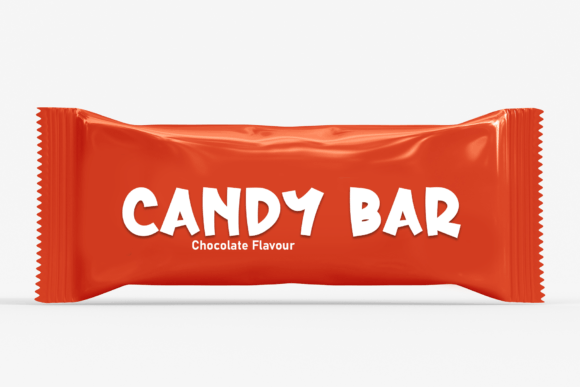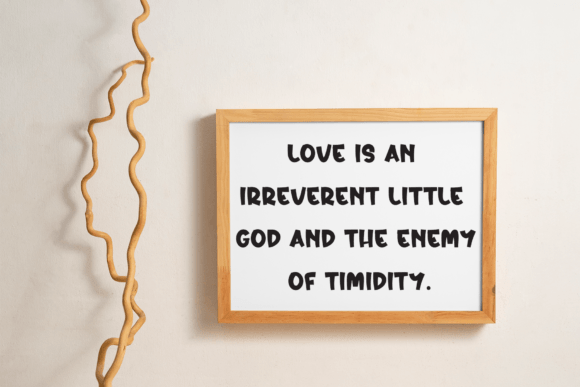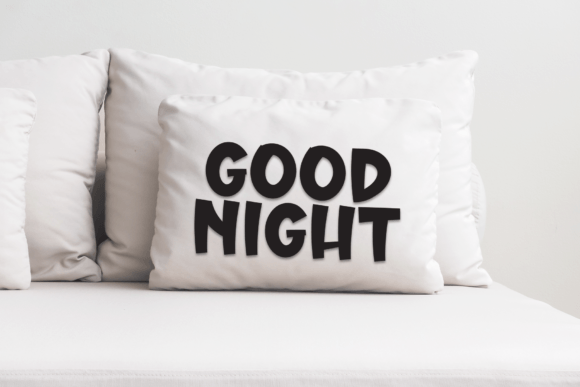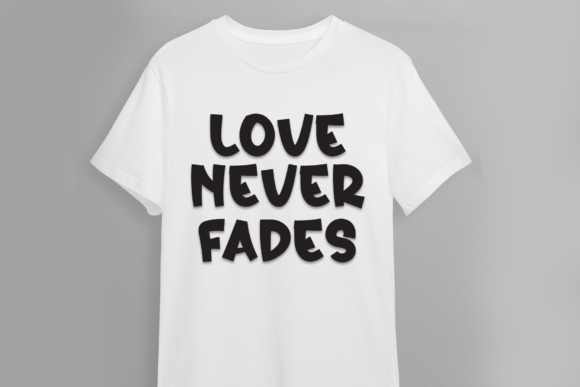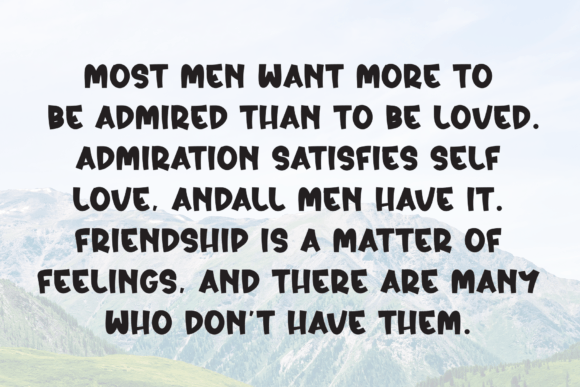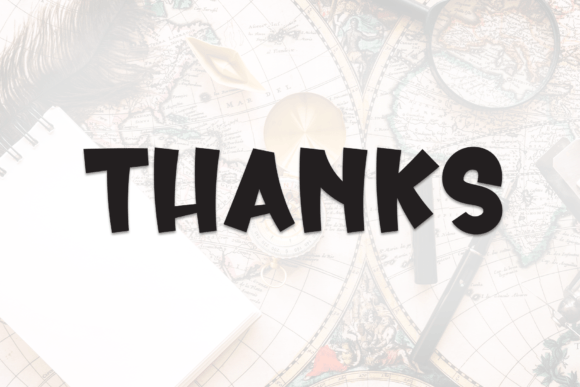
Cultural History Font: A Sweet and Friendly Handwritten Font for Your Designs
Are you a designer or crafter looking for a unique and versatile font to elevate your projects? Look no further than Cultural History Font, a sweet and friendly handwritten font that’s perfect for a wide range of designs. With its natural and distinctive style, Cultural History Font is sure to capture the attention of your audience and leave a lasting impression.
The Characteristics of Cultural History Font
Cultural History Font is a handwritten font that exudes warmth and approachability. Its natural and unique style makes it incredibly fitting to a large pool of designs, from rustic and vintage to modern and playful. The font’s sweet and friendly tone is perfect for designs that require a personal touch, such as invitations, greeting cards, and social media graphics.
One of the standout features of Cultural History Font is its versatility. The font is highly legible and can be used in a variety of contexts, from headings and titles to body text and captions. Its unique character set includes a range of letters, numbers, and punctuation marks, making it easy to use for a wide range of design projects.
The Benefits of Using Cultural History Font
So why choose Cultural History Font for your design projects? Here are just a few benefits of using this sweet and friendly font:
- Unique and distinctive style: Cultural History Font has a natural and unique style that sets it apart from other fonts. Its handmade feel adds a personal touch to your designs and helps to create an emotional connection with your audience.
- Highly versatile: Whether you’re designing a rustic wedding invitation or a modern social media graphic, Cultural History Font is the perfect choice. Its versatility makes it easy to use in a wide range of contexts.
- Easy to read: Despite its handwritten feel, Cultural History Font is highly legible and easy to read. This makes it perfect for designs that require a lot of text, such as blog posts and articles.
- Time-saving: With Cultural History Font, you can create professional-looking designs in no time. Its unique style and versatility make it easy to use and customize, saving you time and effort.
How to Use Cultural History Font in Your Designs
So how can you use Cultural History Font in your designs? Here are a few ideas to get you started:
- Wedding invitations and stationery: Cultural History Font is perfect for wedding invitations, thank you cards, and other stationery. Its sweet and romantic tone sets the tone for a special day.
- Social media graphics: Add a personal touch to your social media graphics with Cultural History Font. Its unique style and versatility make it perfect for Facebook posts, Instagram stories, and more.
- Blog posts and articles: Use Cultural History Font to add a touch of personality to your blog posts and articles. Its readability and style make it perfect for online content.
- Crafting and DIY projects: Cultural History Font is perfect for crafting and DIY projects, such as handmade cards, gift tags, and more.